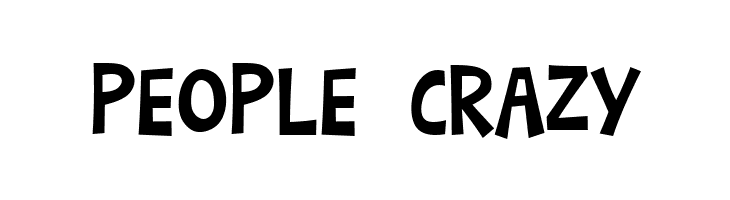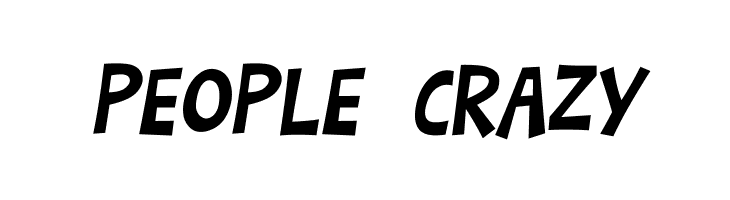
Barthowheel Regular Font
Font by Jayvee D. Enaguas - grandchaos9000.deviantart.com
A playful, bold font with a hand-drawn, rounded style.
Barthowheel Italic Font
Font by Jayvee D. Enaguas - grandchaos9000.deviantart.com
A bold, italic font with a modern and dynamic style.